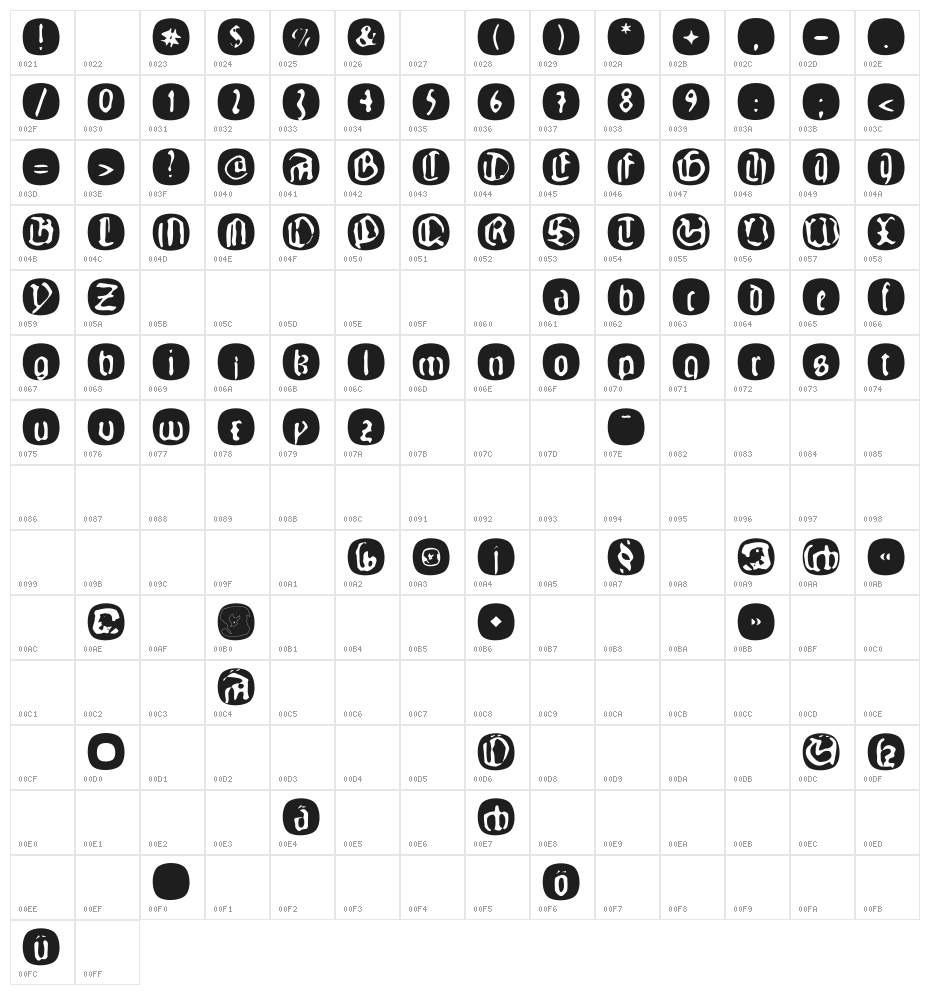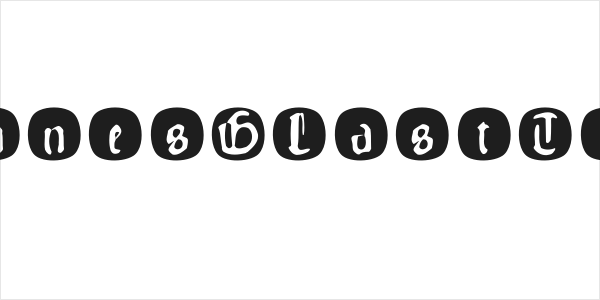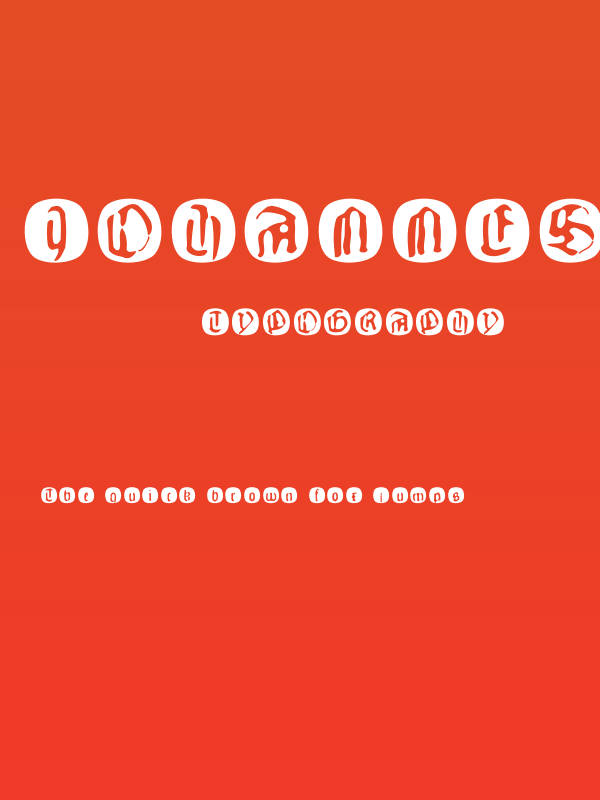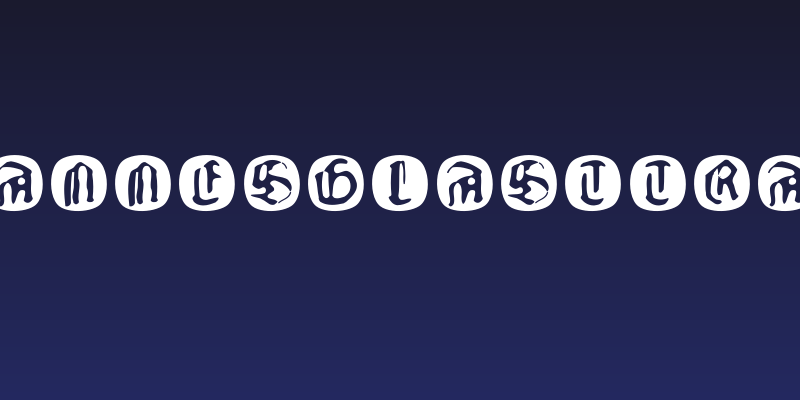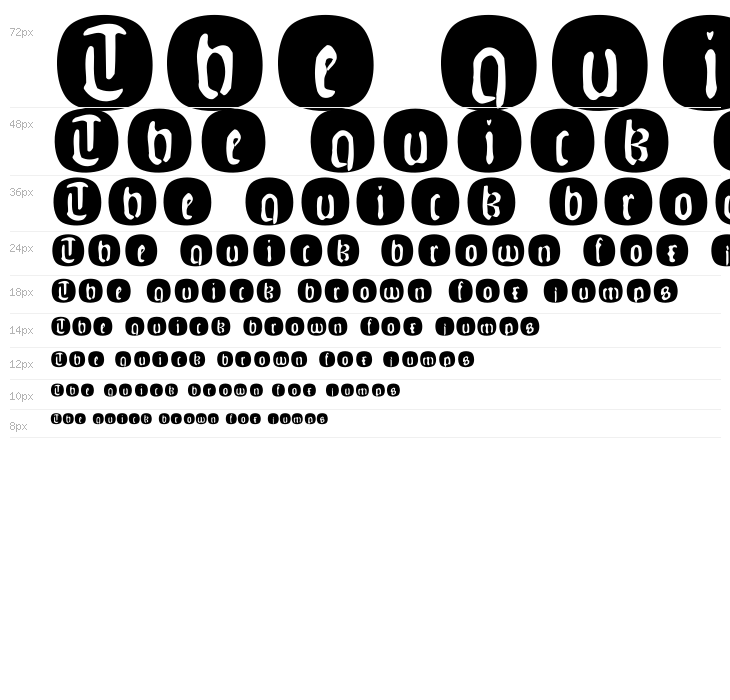
JohannesGLastTraces Font
JohannesGLastTraces Description
This font features a unique and bold design with each character enclosed in a rounded black square, creating a striking contrast. The letters are stylized with a modern twist, incorporating elements of calligraphy and graffiti. The uppercase and lowercase letters maintain a consistent style, while the numbers and special characters complement the overall aesthetic. The font's distinct appearance makes it ideal for creative and artistic projects, offering a playful yet sophisticated look.
| Overall Style | Modern, Artistic |
| Proposed Projects | Ideal for album covers, posters, branding, and any project requiring a bold, artistic touch. |